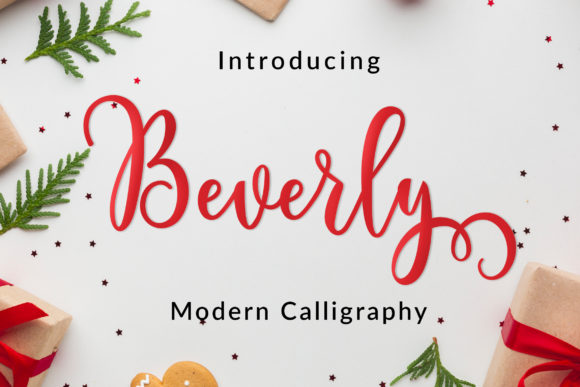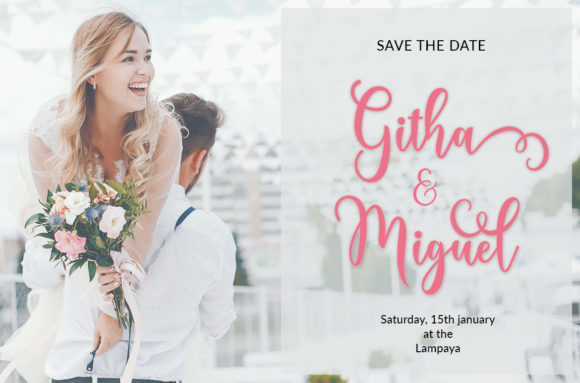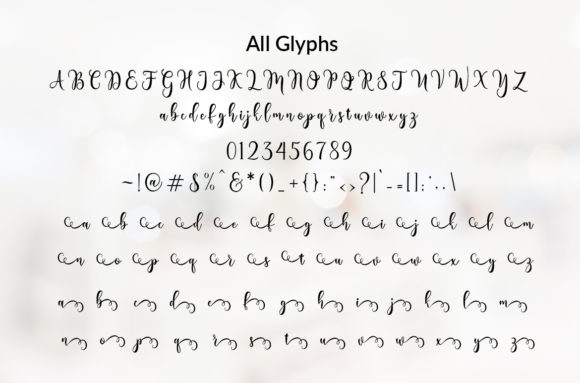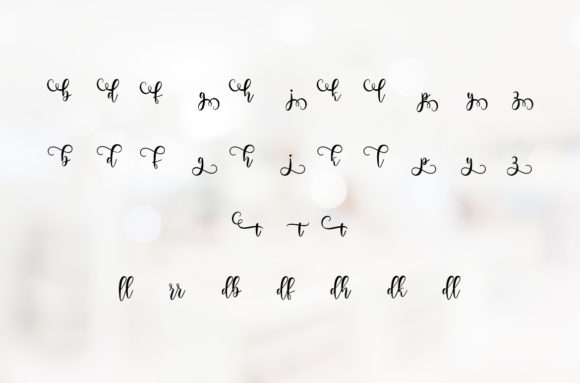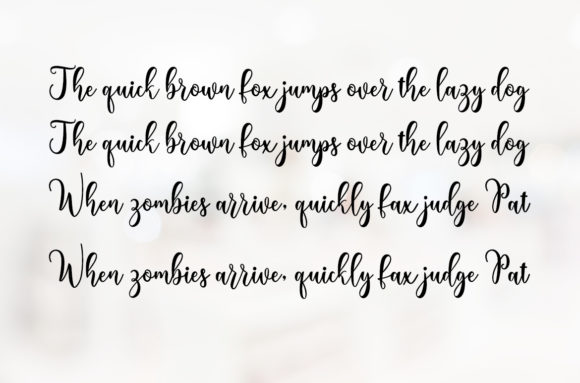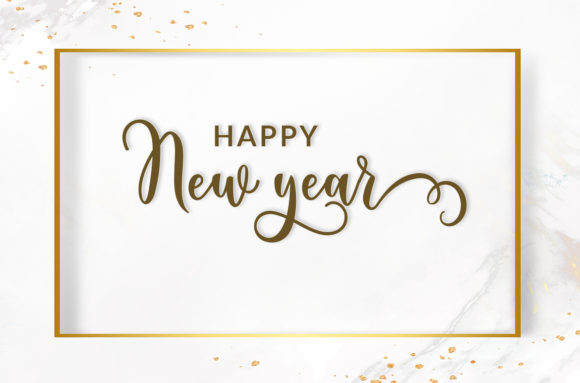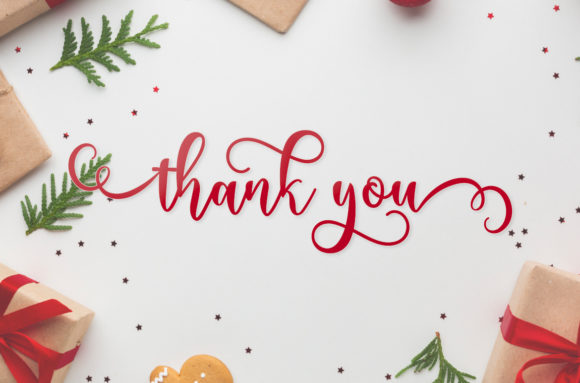
Beverly Script Font
About Beverly Script Font
Beverly is a gorgeous script font that radiates authenticity and life. Ignite your creativity with this bold and sweet script!